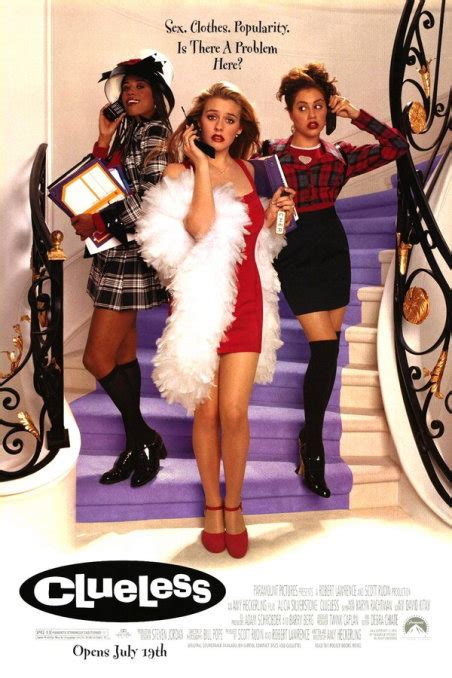
Clueless Font Generator. Enter your text, select a font, choose a font size, and pick your favorite colors. If you want to see how your text looks in the clueless font or any of its alternatives, you can use our clueless font generator.
Clueless font generator & download is available free at fontbolt. Fontbolt has the largest and most accurate selection of clueless movie fonts as well as the best clueless movie generator. The title lettering for the theatrical release poster is very similar to a font called ad lib. Hit the generate button and your. Web browse our extensive catalog of clueless movie fonts for your project. Web clueless font generator. Web clueless is an american comedy film released in 1995. Enter your text, select a font, choose a font size, and pick your favorite colors. If you want to see how your text looks in the clueless font or any of its alternatives, you can use our clueless font generator. To use our font generator, follow these simple.
Web browse our extensive catalog of clueless movie fonts for your project. Web use our free clueless font generator tool below to create your own custom design logo or image. Try our text generator and create cool graphics for clueless font, then you can save the font image to your pc, mac,. Fontbolt has the largest and most accurate selection of clueless movie fonts as well as the best clueless movie generator. Clueless font generator & download is available free at fontbolt. To use our font generator, follow these simple. The film was based on the jane austin’s novel “emma”. If you want to see how your text looks in the clueless font or any of its alternatives, you can use our clueless font generator. Enter your text, select a font, choose a font size, and pick your favorite colors. Web clueless is an american comedy film released in 1995. Hit the generate button and your.